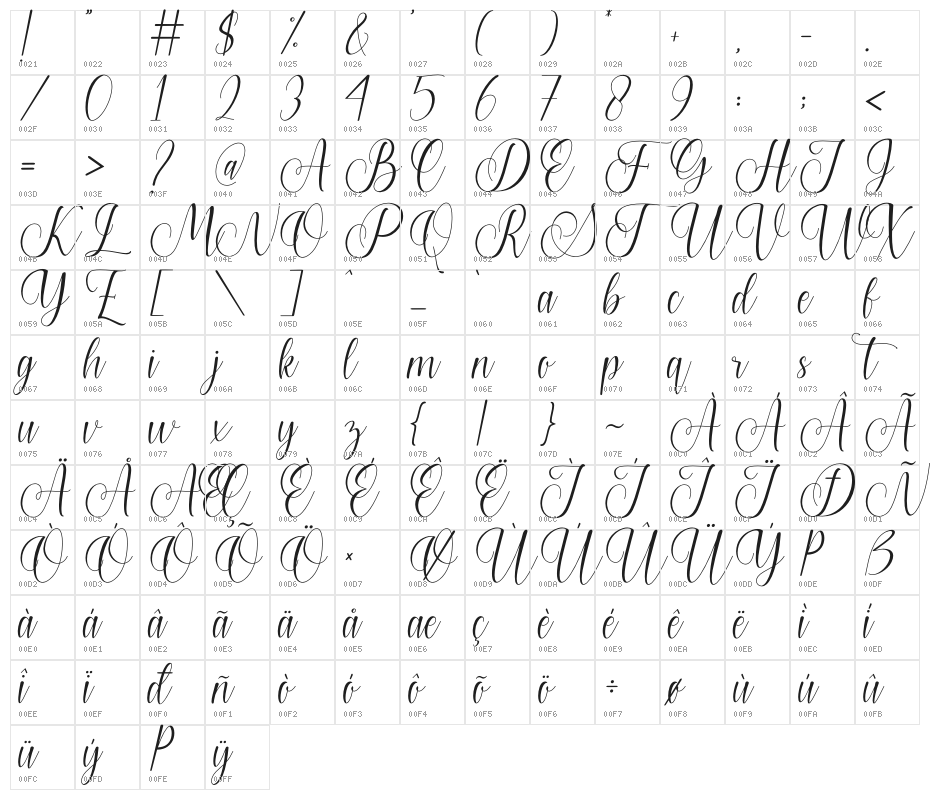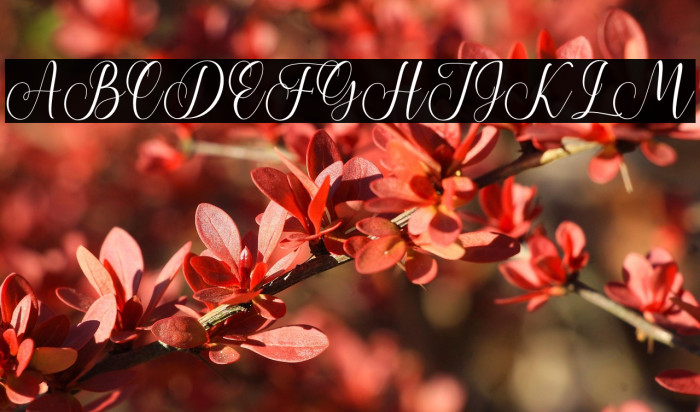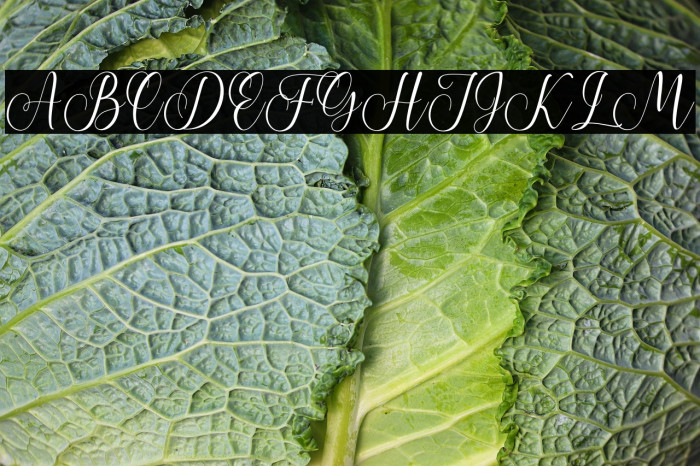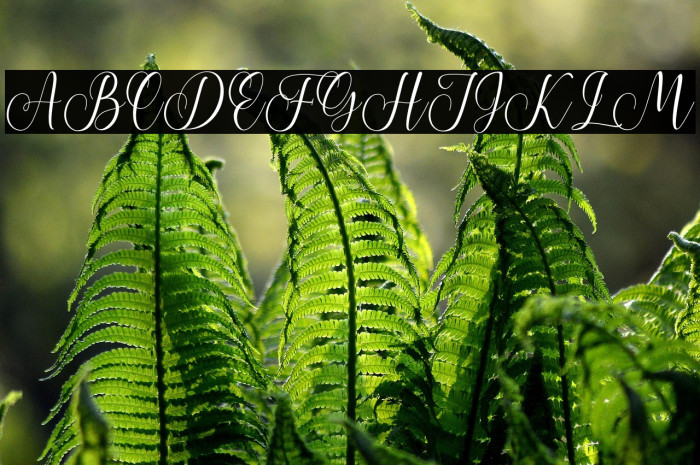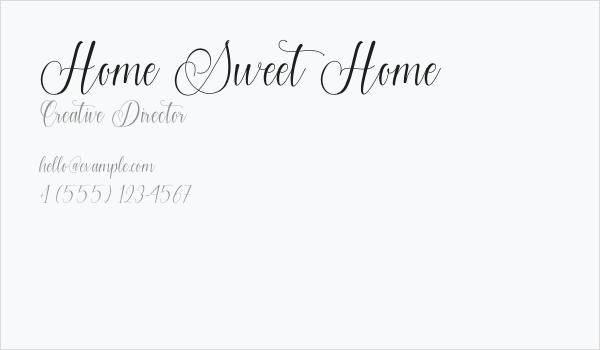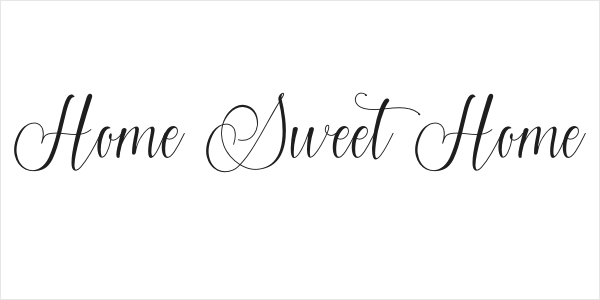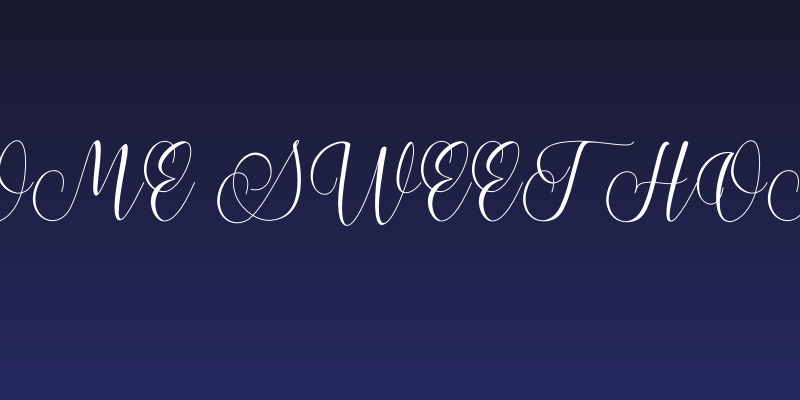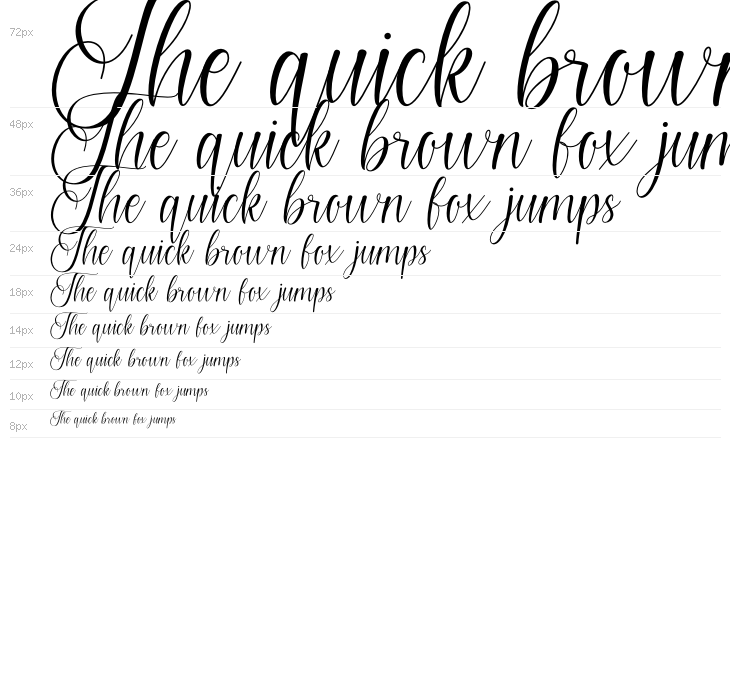
Home Sweet Home Font
Home Sweet Home Description
This elegant script font features a flowing, cursive style with intricate loops and swashes. The uppercase letters are ornate, with extended flourishes that give a sense of movement and grace. The lowercase letters maintain a consistent flow, complementing the uppercase with their own subtle curves. The numerals are designed with a similar flair, incorporating the same delicate strokes and loops. Special characters are equally decorative, fitting seamlessly with the overall aesthetic. This font exudes sophistication and charm, making it ideal for formal invitations, branding, and decorative purposes.